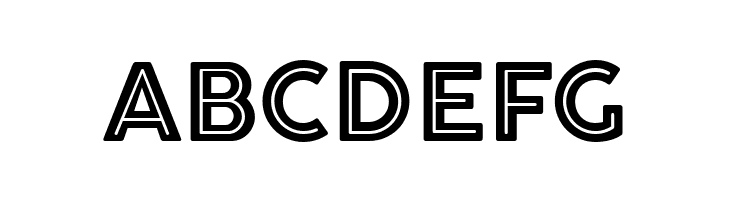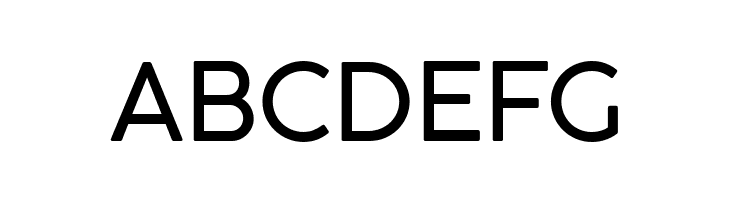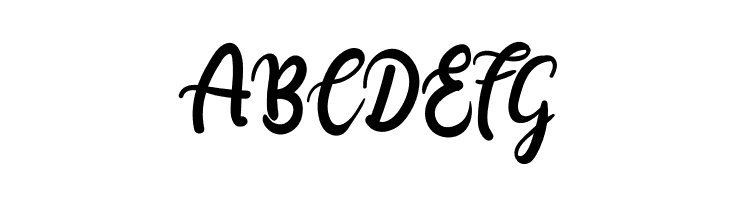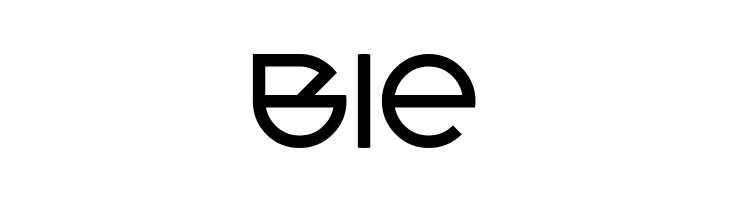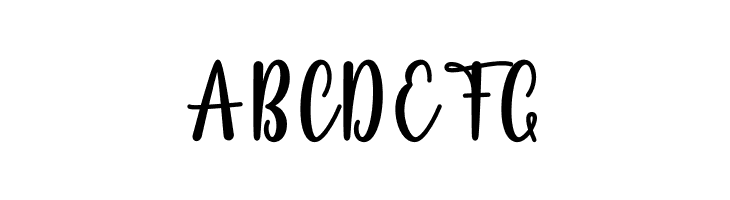
A modern inline font with geometric letterforms and consistent width.
A modern, geometric sans-serif font with a clean and minimalistic design.
A bold, outlined font with a modern and retro flair, offering high legibility and impact.
A clean, modern sans-serif font with a semi-light weight and uniform stroke width.
A sleek, modern font with thin, clean lines and a minimalist aesthetic.
A modern, ultra-light sans-serif font with a sleek and minimalist design.
A bold, rounded font with a playful and inviting style.
A bold, expressive script font with flowing, cursive letterforms.
A modern, geometric font with bold, circular shapes and clean lines.
A playful, handwritten script font with smooth, flowing characters.